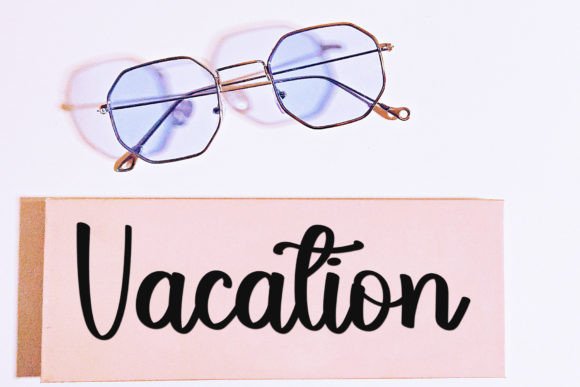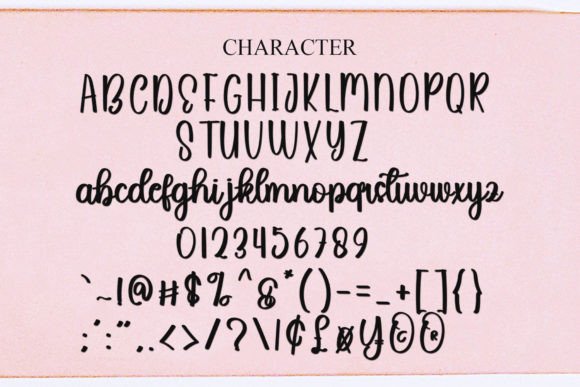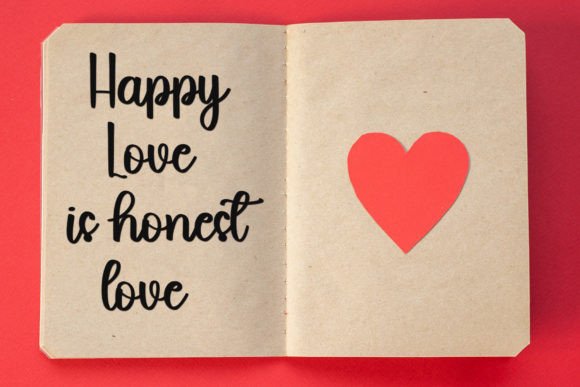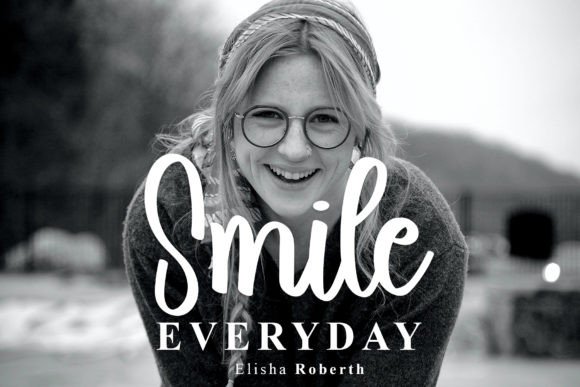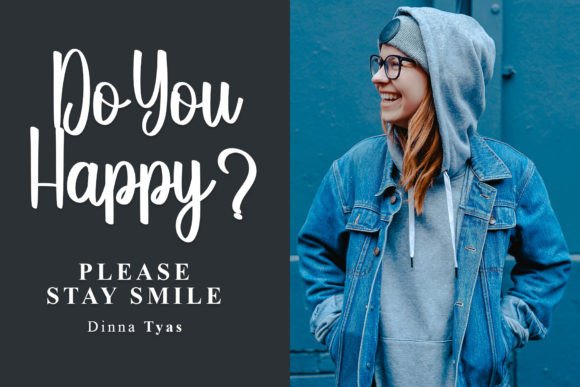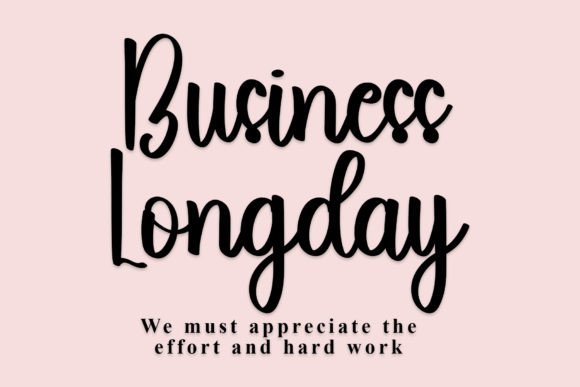
Introducing Heavy Font: Elevate Your Designs with Elegance and Timelessness
In the realm of typography, few fonts manage to capture the essence of elegance and timelessness as effectively as Heavy Font. This beautifully crafted handwritten font is distinguished by its elegant touch, making it an ideal choice for designers and crafters looking to infuse their projects with a touch of sophistication. In this article, we’ll explore the unique characteristics of Heavy Font, its versatility, and how it can be the perfect addition to your design toolkit.
The Distinctive Charm of Heavy Font
Heavy Font stands out in the crowded world of typography due to its incredibly distinct and timeless style. Its elegant touch is not just a mere aesthetic appeal; it’s a reflection of meticulous craftsmanship that goes into creating a font that can be both versatile and eye-catching. Whether you’re working on a branding project, a website design, or crafting beautiful handmade cards, Heavy Font brings a level of sophistication that is hard to match.
One of the key advantages of Heavy Font is its versatility. Its elegant and timeless design makes it suitable for a wide range of projects. Here are a few ways you can use Heavy Font to elevate your designs:
- Branding and Logotypes: Create a lasting impression with your brand’s identity by using Heavy Font in your logos and branding materials. Its unique style ensures that your brand stands out from the competition.
- Website Design: Enhance the visual appeal of your website with Heavy Font. It can be used for headings, titles, and even short paragraphs to add a touch of elegance to your web design.
- Stationery and Invitations: Add a personal touch to your stationery, invitations, and greeting cards. Heavy Font’s beautiful handwriting style brings warmth and personality to any written communication.
- Packaging Design: Make your product packaging stand out on the shelves with Heavy Font. Its distinct style can help convey your brand’s message effectively.
Why Choose Heavy Font?
With so many fonts available, why should Heavy Font be your go-to choice? Here are a few compelling reasons:
- Unique Style: In a sea of generic fonts, Heavy Font offers a breath of fresh air with its unique and elegant style.
- Timeless Appeal: Unlike trendy fonts that may quickly go out of style, Heavy Font’s timeless design ensures it remains relevant for years to come.
- Easy to Read: Despite its elegant and somewhat bold appearance, Heavy Font is surprisingly easy to read, making it perfect for both headings and body text.
- Versatile: Whether your project requires a formal or casual tone, Heavy Font adapts beautifully to fit your needs.
Tips for Using Heavy Font Effectively
To make the most out of Heavy Font, consider the following tips:
- Pair it with Simplicity: Let Heavy Font be the centerpiece of your design by pairing it with simpler fonts for body text or other design elements.
- Experiment with Colors: While Heavy Font shines in black, don’t be afraid to experiment with different colors to match your brand’s palette or project theme.
- Adjust Letter Spacing: For a more customized look, play around with letter spacing to create a more airy or compact feel, depending on your design needs.
Heavy Font is more than just a font; it’s a design statement. Its elegant touch, distinct style, and timeless appeal make it an invaluable asset for designers and crafters looking to create spectacular designs. Whether you’re aiming for elegance, simplicity, or a bold statement, Heavy Font is sure to exceed your expectations. So, fall in love with its unique style and let it transform your designs into beautiful works of art.